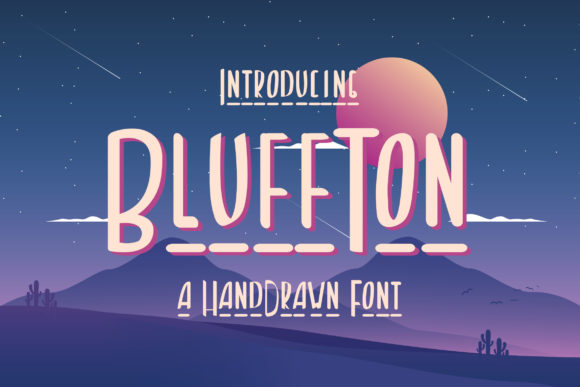
Welcome to the captivating world of fonts, where Bluffton reigns supreme as a display font masterpiece. Let your creativity flourish with this simple, tall, and trendy font that promises to transform your design ideas into visual marvels. With Bluffton, every word carries weight and commands attention, making it the perfect choice for clothing websites that seek to stand out from the mundane.
Unleash the power of originality and embrace the distinctive charm of Bluffton. Its tall and slender strokes create a striking visual rhythm, drawing the eye effortlessly to your text. Whether you're crafting captivating headlines, eye-catching logos, or alluring branding elements, Bluffton will elevate your designs to new heights of sophistication.
But it's not just about aesthetics; Bluffton is a font with a purpose. Its clean lines and minimalist style convey a sense of modernity and professionalism, making it ideal for fashion brands that want to exude a contemporary and stylish image. With Bluffton, your clothing website will radiate an air of exclusivity and refinement, inviting customers to immerse themselves in the world of high-quality fashion.
While Bluffton is undoubtedly a versatile font that complements a variety of design concepts, it truly shines when paired with the vibrant and dynamic world of fashion. Its tall and slender structure lends itself perfectly to creating visually appealing product descriptions, enticing call-to-action buttons, and captivating social media posts. Imagine the impact of your clothing website when every element, from the product showcase to the checkout process, is adorned with the captivating elegance of Bluffton.
Experience the transformative power of Bluffton, the display font designed to make your clothing website a masterpiece of visual allure. Join the ranks of fashion-forward designers who understand the importance of typography in creating a brand identity that resonates with customers. Download Bluffton today and unlock the gateway to a world where creativity flourishes, and every design element tells a story of style and sophistication.